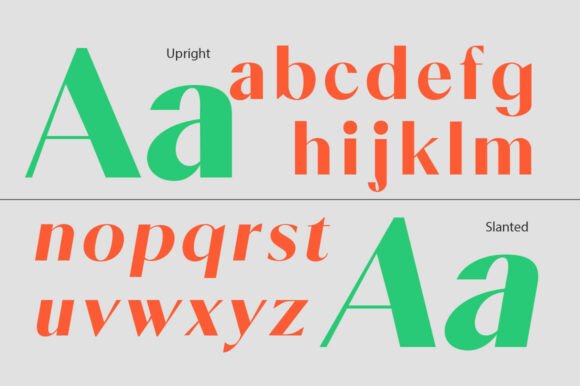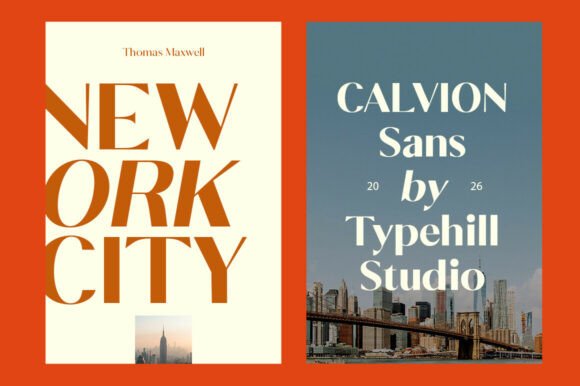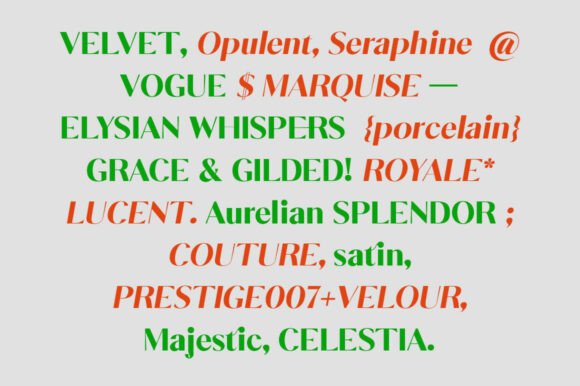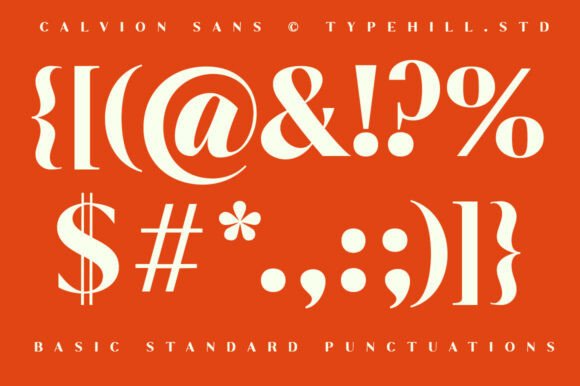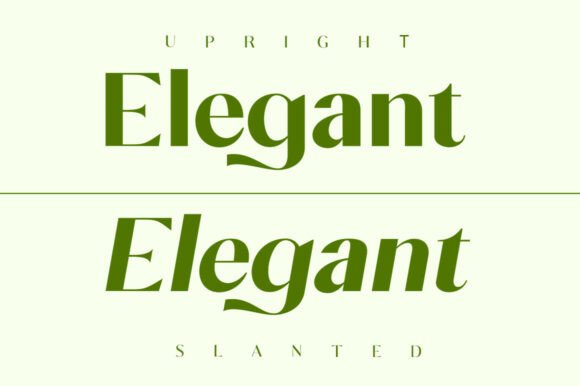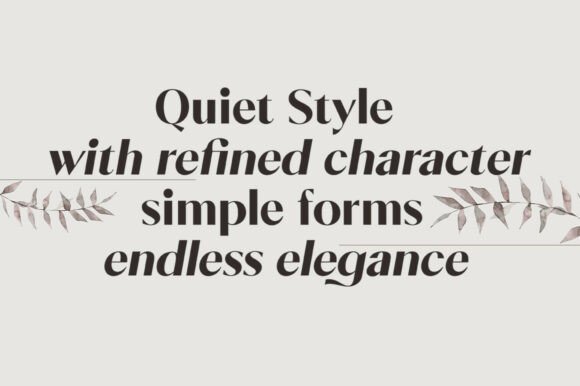
Introducing Calvion Sans: The Epitome of Modern Elegance in Typography
In the realm of typography, the quest for the perfect font is a never-ending journey. Designers and crafters are constantly on the lookout for typefaces that not only convey their message with clarity but also add an aesthetic appeal to their creations. It is in this pursuit that Calvion Sans emerges as a beacon of modern elegance, seamlessly blending classic sophistication with a bold, avant-garde spirit.
Calvion Sans: A Modern Sans-Serif Typeface
Calvion Sans is defined by its contemporary charm, making it an ideal choice for projects that demand a touch of sophistication and elegance. This modern sans-serif typeface is ingeniously crafted to bridge the gap between traditional editorial finesse and the bold statements often required in high-fashion branding. Its design is a thoughtful combination of dramatic, flowing ligatures and sharp, high-contrast strokes, which together, create a visually stunning effect.
Key Features of Calvion Sans
• Dramatic, Flowing Ligatures: One of the standout features of Calvion Sans is its dramatic ligatures. These unique connections between letters not only enhance the readability of the text but also add a touch of elegance and fluidity, making it perfect for headers and logos.
• Sharp, High-Contrast Strokes: The typeface boasts sharp, high-contrast strokes that contribute to its modern and sleek appearance. This feature allows Calvion Sans to stand out in any design, providing a crisp and clean look that is both timeless and contemporary.
• Upright and Slanted Variants: Understanding the need for versatility in design, Calvion Sans comes in both upright and slanted variants. This range allows designers to experiment with different styles and tones, making it an incredibly versatile tool for a wide array of projects, from magazine layouts and luxury packaging to minimalist brand identities.
Applications of Calvion Sans
Given its elegant and modern design, Calvion Sans finds its application in various creative fields. Here are some of the areas where Calvion Sans truly shines:
• Magazine Layouts: For editorial projects, Calvion Sans offers the perfect blend of readability and style. Its dramatic ligatures and elegant strokes make headlines and article titles not just informative but also visually appealing.
• Luxury Packaging: The high-end feel of Calvion Sans makes it an excellent choice for luxury packaging. It helps brands convey a sense of sophistication and premium quality, essential for luxury goods.
• Minimalist Brand Identities: For brands aiming for a minimalist yet impactful identity, Calvion Sans serves as an excellent choice. Its clean lines and elegant appearance help in creating a strong brand presence without appearing overly complicated.
Why Choose Calvion Sans?
The decision to choose a particular font can significantly influence the outcome of a design project. Here are reasons why Calvion Sans should be at the top of your list:
• Timeless Appeal: Despite being a modern typeface, Calvion Sans possesses a timeless quality. Its design ensures that it will remain relevant and stylish for years to come, avoiding the quick obsolescence that often affects trendy fonts.
• Versatility: The availability of both upright and slanted versions, along with its range of ligatures, makes Calvion Sans highly versatile. It can adapt to various design needs, making it a valuable addition to any designer’s toolkit.
• Elegance and Sophistication: At its core, Calvion Sans is about elegance and sophistication. It brings a level of refinement to any project, elevating the overall design and making it more engaging to the audience.
In conclusion, Calvion Sans stands out as a modern sans typeface that embodies contemporary elegance. Its unique combination of dramatic ligatures, sharp strokes, and versatile variants makes it an indispensable asset for designers looking to infuse their projects with sophistication and a modern edge. Whether you are working on a magazine layout, luxury packaging, or crafting a minimalist brand identity, Calvion Sans is poised to elevate your design to new heights of aesthetic appeal and functionality.